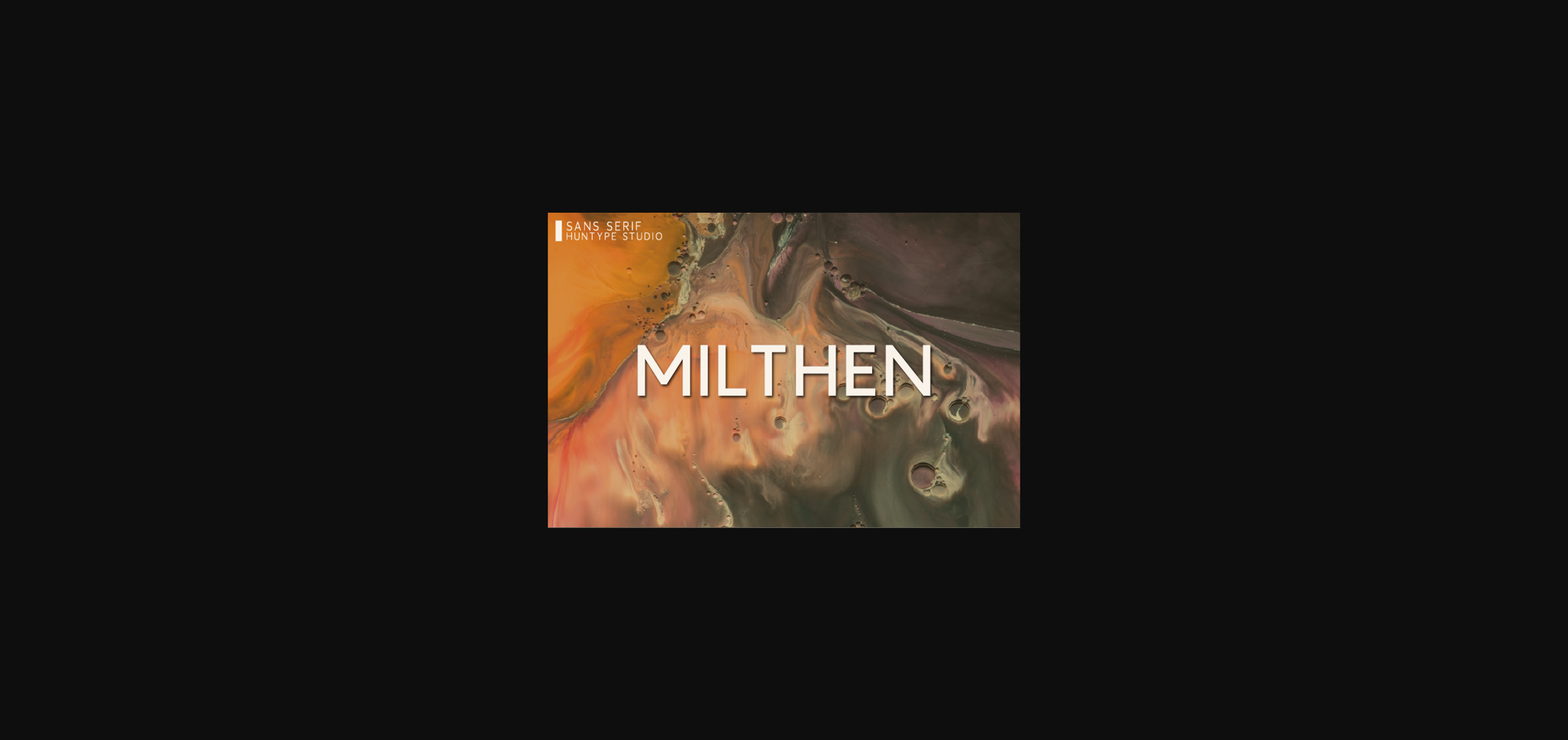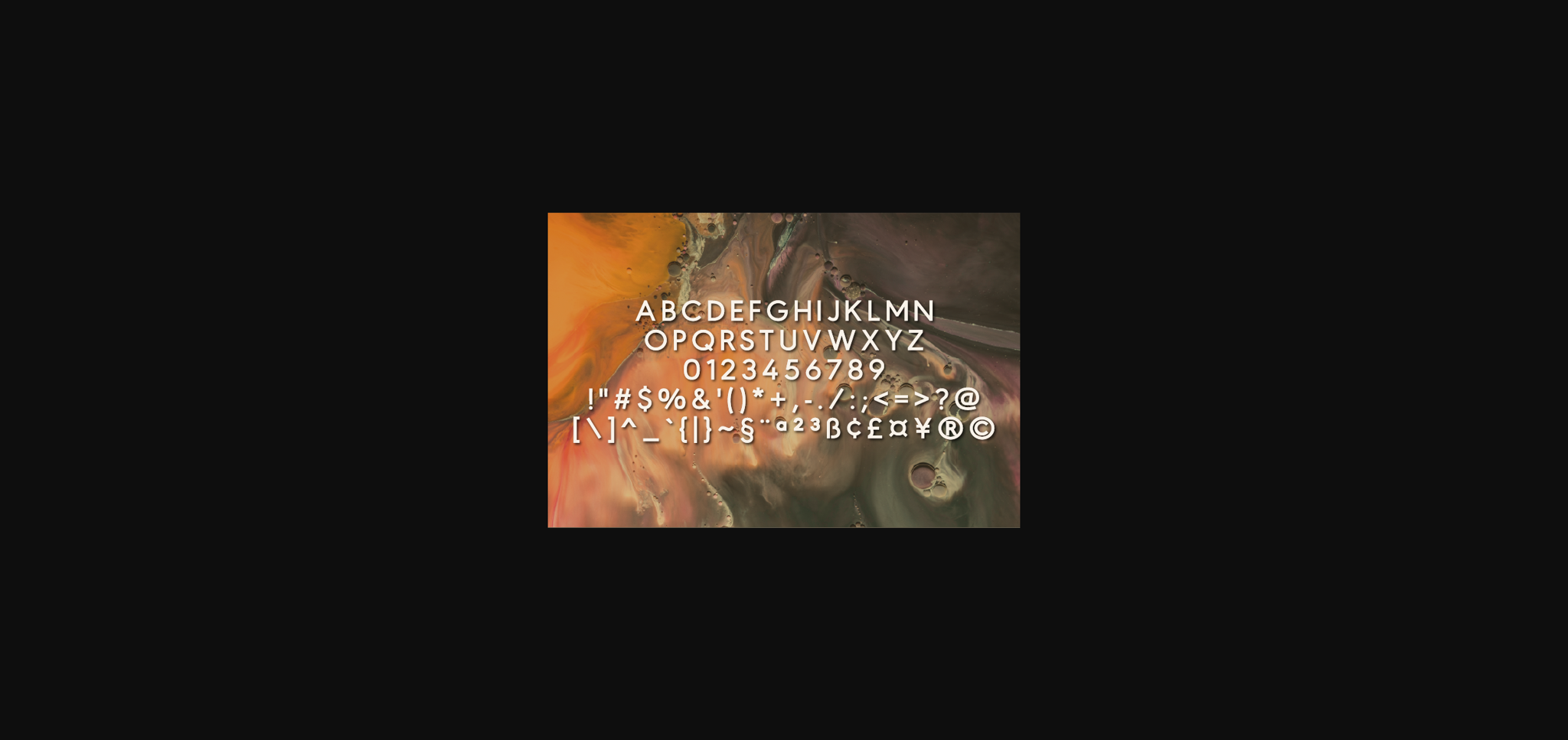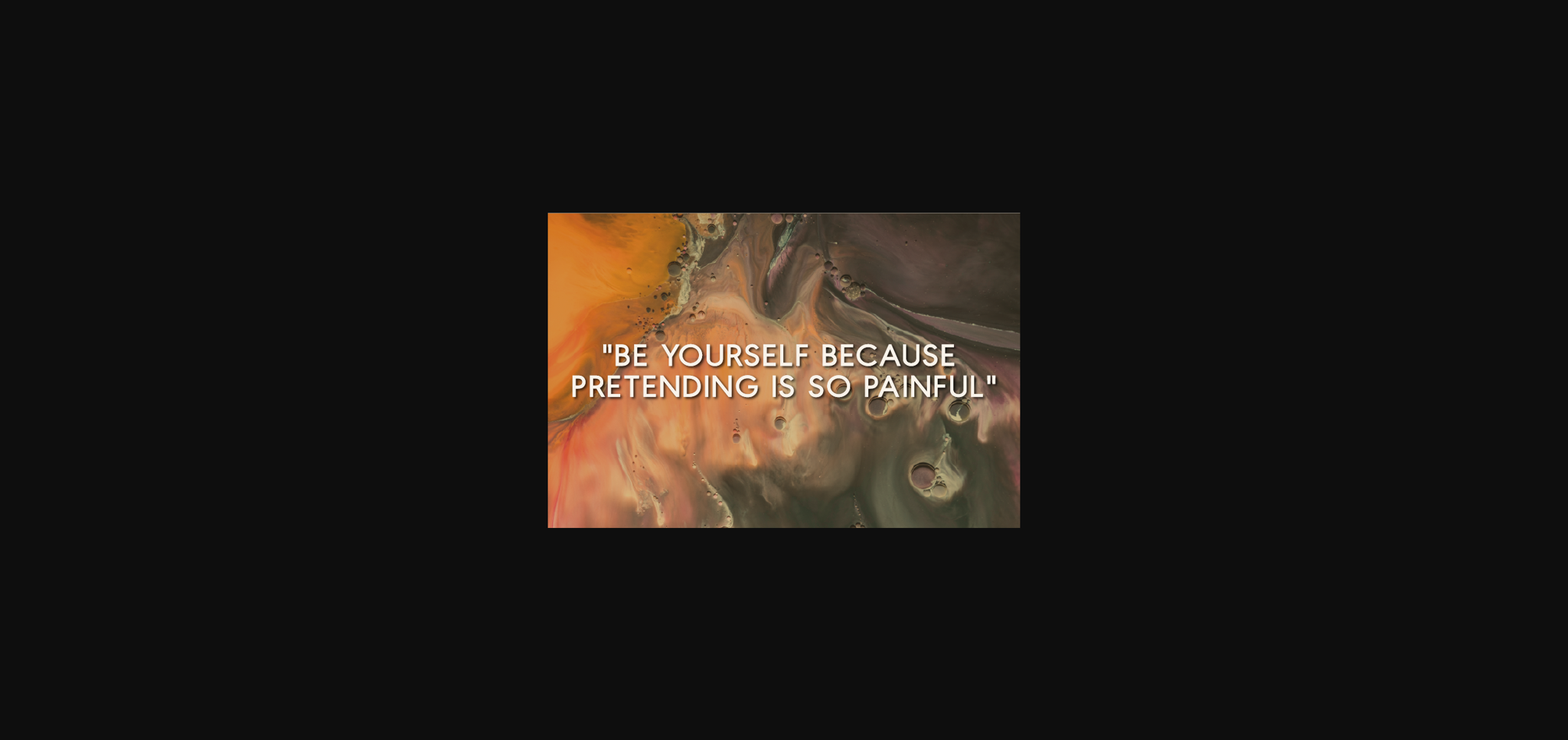
Milthen Font
About Milthen Font
Milthen is a simple and authentic sans serif font. It has a clean, thin and smooth vibe and it will be a hit for any design that you want to add it to.